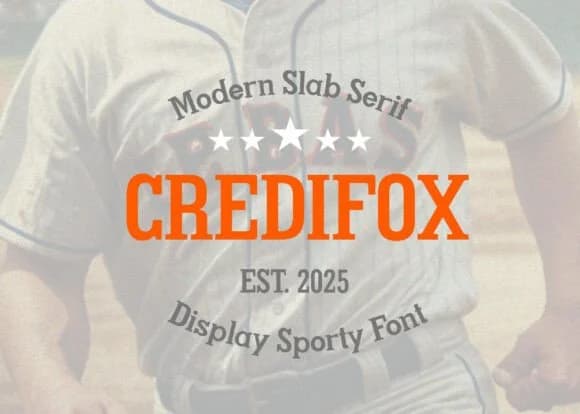
Credifox's letterforms strike a precise balance between geometric restraint and chunky, confident proportions that command immediate attention. Designed by ludwigaxelsiha, this slab-serif typeface merges the substantial weight and visual presence of classic block letters with contemporary refinement, creating something that feels distinctly modern without chasing fleeting trends. The broad serifs and steady character widths give every word a grounded, authoritative bearing.
The font sits at the intersection of slab serif and sans serif sensibilities, working equally well for bold visual impact or legible detail. It excels for sports team jerseys and athletic wear branding, vintage brewery and craft beer label design, skateboard shop posters and skate event graphics, and bold signage that demands genuine character and durability. This stays clean and readable at display sizes while remaining sturdy through dense layouts. Whether you're setting a single-word logo or stacking multiple lines of text on packaging, the typeface holds its presence and clarity.
Credifox Font is a slab serif font that shines as a display or heading face. Pair it with a clean sans-serif or serif font for body text — the contrast creates a clear hierarchy while the two styles stay balanced and easy to read.